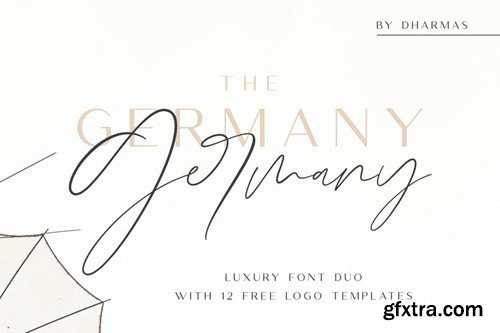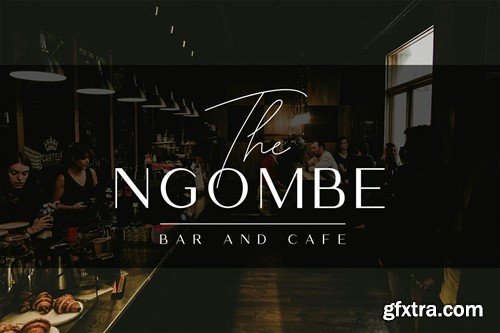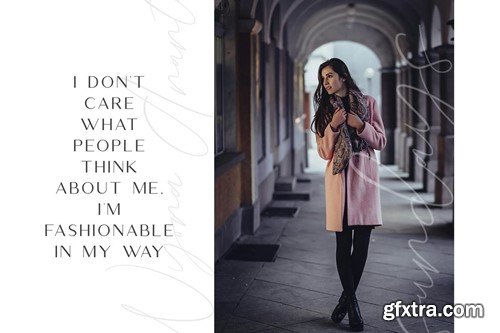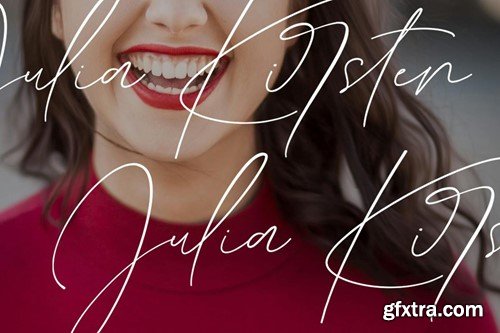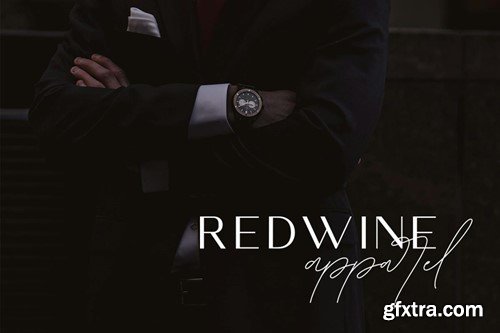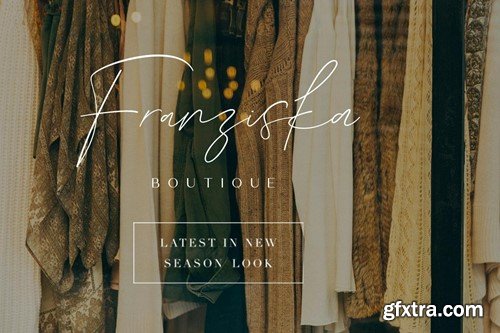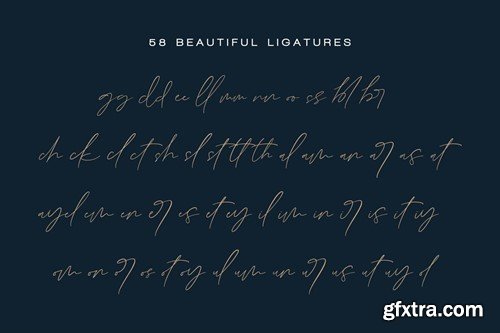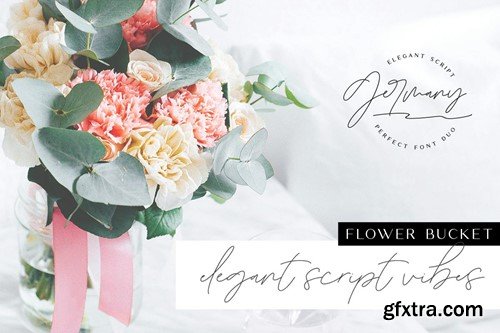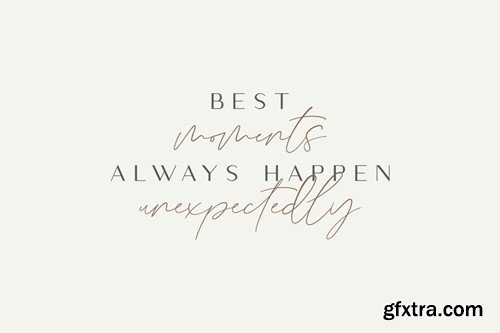
德国 - 现代字体双N4L2PKK
Introducing the Germany - Luxury Font Duo, a classy, contemporary pair of script and serif fonts! Germany offers beautiful typographic harmony for a diversity of design projects, including logos & branding, wedding designs, social media posts, advertisements & product designs. Germany also includes a set of 12 editable logo templates, each one uniquely combining the two Germany fonts to create striking, modern logo designs for you to edit and use as your own. Germany includes over 58 ligatures to make everything look hand-done and alternates for each letter. Your download will receive 5 font files Germany Script: A clean, free-flowing script font containing upper & lowercase characters, numerals, and a large range of punctuation. Germany Monoline Script: This is the second part of Germany script, which has 1 line (monoline) in line pull Germany Sans: A classy, high-contrast sans font containing uppercase characters only, numerals, and a large range of punctuation. Creates a perfect pairing contrast with the Germany fonts. Germany Ligature: As the ligature displayed in the font Let me know if you have any other questions. Thanks and have a wonderful day:) Dharmas Studio